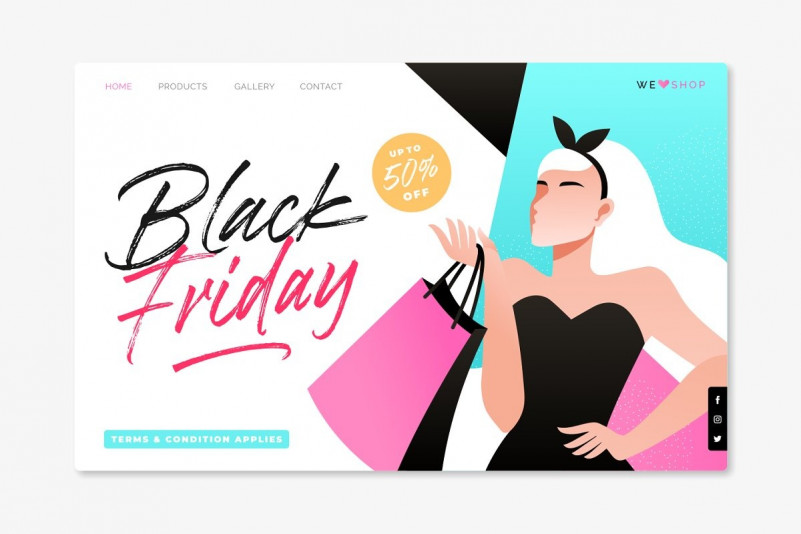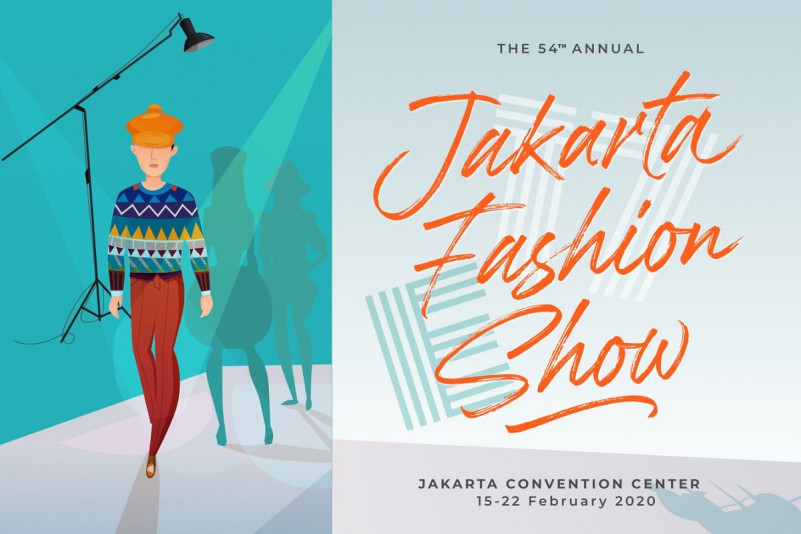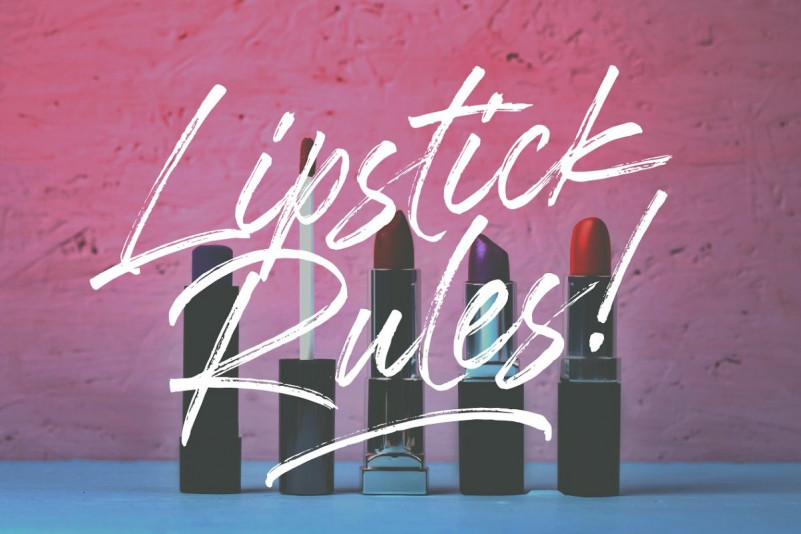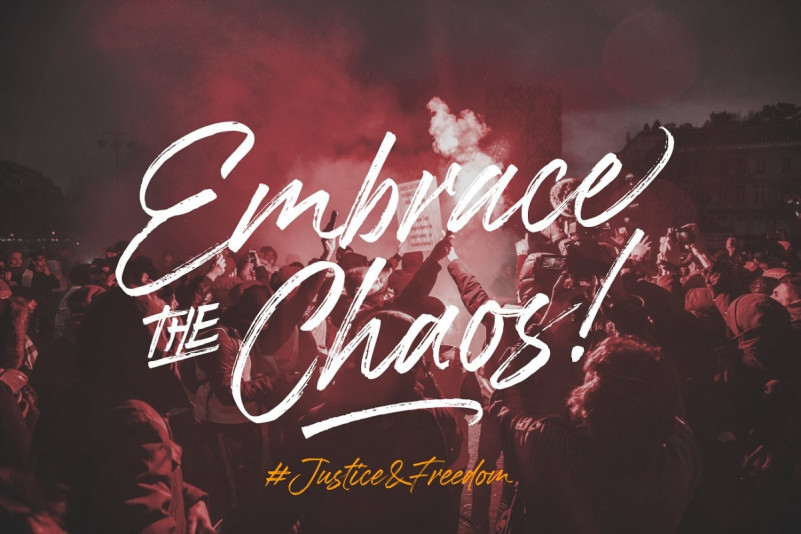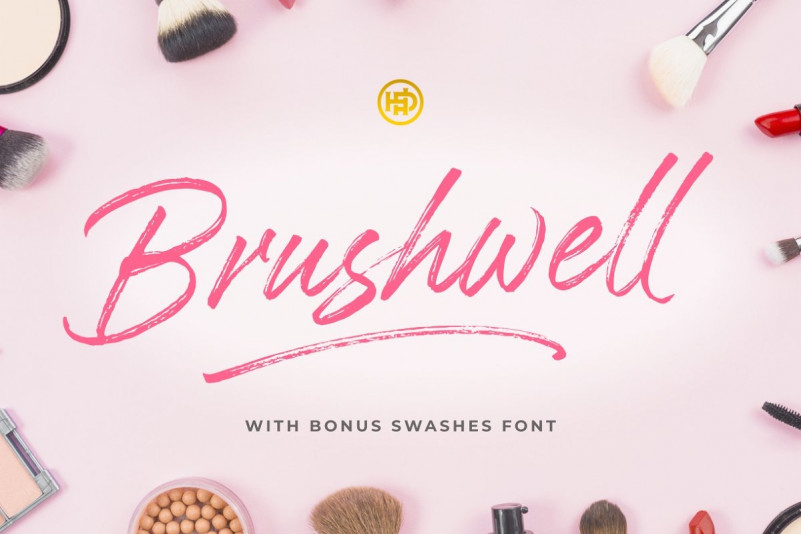
Brushwell Dry Brush Font
Introducing Brushwell Font! It’s designed and shared by Hendra Pratama. It’s a modern handwritten font with quick-drying strokes. This font deliver the dry brush effect , to create a natural looks of beautiful handwriting brush calligraphy. It’s perfectly used on Magazine, Header, Poster, Album cover, Packaging, Logo Design, Calatogue, Branding.